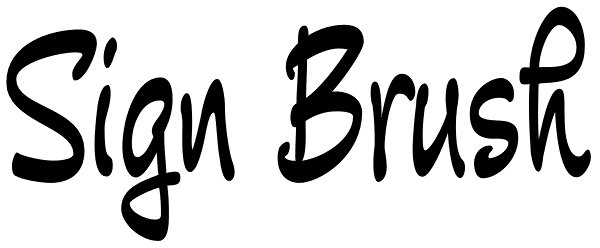
Sign Brush
A casual, unconnected script face. A brush script designed after my younger days as a sign painter, suitable for work requiring immediate attention most often seen on packaging and supermarkets. Works equally well for captions, invitations, cards...